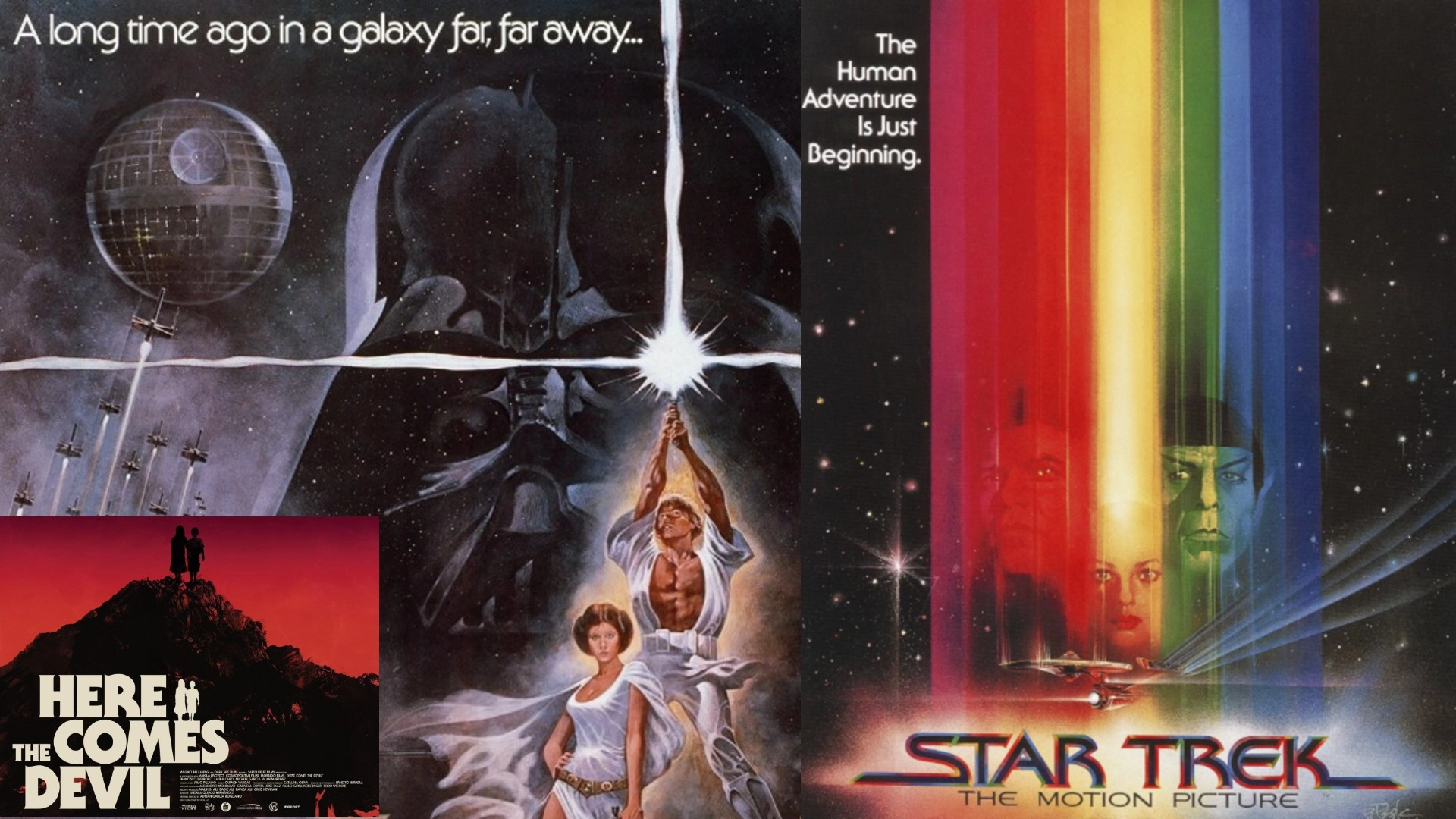
The best typography of the 1970s, as chosen by experts
The 1970s were a bold, transformative decade for design, and typography was no exception. As phototypesetting matured, designers found themselves freed from the physical constraints of metal type, enabling letters to touch, overlap, and interact in entirely new ways.
More generally, designers embraced the curves, flair, and experimental spirit of the time, giving rise to typography trends such as playful display fonts, chunky serif types, and futuristic styles.
We've spoken to leading typography experts to explore the decade's most influential and innovative typefaces. Read on to discover which one they picked, and why they remain a powerful source of inspiration for creatives today. For further inspiration, don't miss our guide to the best '70s logos or see this year's hottest type trends.
01. Baby Teeth
Famed New York creative Milton Glaser is one of those names that every graphic designer should recognise. But while he's best known for his 'I [Heart] New York logo, and work for Bob Dylan and DC Comics, he also crafted a fair few typefaces, and Baby Teeth was one of the most notable. Inspired by a hand-painted Mexican advertisement, it was released in 1968 and went on to become a defining typeface of the following decade's countercultural movements.
Jessica Walsh, creative director at Type of Feeling, is among its fans today. "Baby Teeth is a standout for me," she enthuses. "With its chunky, sans-serif design, which feels both playful and daring, it encapsulates the psychedelic aesthetic of the period. This typeface is a reminder that design can be both serious and fun."
02. Stop
Released by the Nebiolo type foundry in Turin in 1970, Stop was one of the last typefaces produced in metal, yet its impact would be thoroughly modern. Designed by Aldo Novarese, it was launched on the market as a “new alphabetical sign… in the quest for new graphic ideas”. Its extremely stylised shapes letterforms were specifically designed to make attractive logos, initials and monograms.
As Landor's design director Gianluca Ciancaglini observes: "Stop is a prime example of modernist design, with its simple, geometric forms and stark contrasts. Each letter is a study in precision and balance, a testament to creator Novarese's meticulous approach, and radical departure from the ornate scripts of the past."
In short, while drawing inspiration from modernist principles, Stop exhibits a visual complexity that sets it apart. "Novarese, with his masterful hand, has created a balance between essential geometric forms and carefully crafted details that lend the typeface a distinctive personality," notes Gianluca. "It's a perfect example of how typography can be both rigorous and expressive."
03. ITC Avant Garde Gothic
Designed by Herb Lubalin and Tom Carnase in 1970, ITC Avant Garde Gothic is a geometric sans serif font family. "It was based on a logo Lubalin designed for Avante Garde magazine, whose distinctive look came to define a specific era of graphic design in the 70s," explains Rosie Garschina, executive creative director of Trollbäck+Company,. "A suite of alternative ligatures creates several recognisable combinations that felt futuristic and forward-thinking at the time."
Gianluca is also a fan. "This sans-serif font masterfully combines a modern, minimalist aesthetic with a strong personality, profoundly influencing how we perceive typefaces," he enthuses. "It captures a spirit of a generation that was eager to break free from the constraints of the past and embrace the future."
Riccardo De Franceschi, creative director at Dalton Maag, adds that its release came at a pivotal time for type technology. "From the mid-20th century, first photocomposition and then dry transfer lettering freed fonts for the first time in history from their physical constraints," he explains. "Letters could finally touch and overlap, and ITC Avant Garde Gothic was designed to make the most of these technological innovations."
In practice, that meant that: "Round strokes were allowed to touch the next letter. Straight vertical stems were separated by a very fine space, as were the diagonals of the 45-degree slanted alternate shapes for 'A', 'M', 'V', and 'W'. This extremely tight rhythm is punctuated by the large circular counters of letters like 'O' and 'D'. A range of innovative ligatures are at the core of the set, including interlocking and nested uppercases – something that 'nobody had ever fooled around with', as Lubalin himself put it."
04. Trooper Roman
Created by Dave Trooper in 1974, Trooper Roman is a Didone display face that exemplified the new possibilities of phototype technology. Thierry Blancpain, co-founder of Grilli Type, reflects on why it made such an impact.
"Trooper Roman is a classic 70s design that brings so much flavour to the table," he says. "Design elements like the tall x-height and the short, stubby serifs create a high impact and most importantly fun impression.
"It was designed for VGC, creator of a phototype machine that allowed for headline typeface setting," Thierry adds. "These machines allowed for resizing, scaling, squeezing and expanding typefaces on the fly, in a way that was totally new to the design world, coming as it was from metal and wood type."
05. Cooper Black
Cooper Black is an ultra-bold serif typeface intended for display use, which was designed by Oswald Bruce Cooper and released by the Barnhart Brothers & Spindler type foundry in 1922. But it really came into its own within the counterculture of the 1960s and 1970s, with its distinctive rounded shapes and thick strokes perfectly captured the era's rebellious spirit.
This typeface wasn't just visually striking; it was versatile, used for everything from ads to album covers, such as The Doors' L.A. Woman and David Bowie's Ziggy Stardust. Towards the end of the decade, it also became popular with the emerging hip-hop movement.
Its popularity has persisted, and in 2017, The Guardian named it as the most fashionable font due to its use by fashion brands such as Topshop and Pull and Bear. Cooper Black's distinctive style continues to be used in various design applications, from posters to branding and packaging, and it's typically used to evoke a sense of nostalgia or to add a playful, eye-catching element to a design.
06. Calypso
Designed by by Roger Excoffon, produced with the help of José Mendoza y Almeida, and released by Fonderie Olive, Calypso is an experimental display typeface with curvaceous and alluring features that could be likened to pop art. Using a pair of compasses, every character was meticulously hand-drawn dot by dot. Though designed in 1958, it found its true spiritual home in the experimental 1970s.
As Simon Manchipp, founding partner at SomeOne, explains: "The '60s' trippy edge might have been fading, but there were still a few notable moments of typographic radicalism in the '70s. And this three-dimensional, dot screen, halftone stonker is my pick of the bunch. What a wild ride this collections of letterforms gives.
"Much like the BrandWorld thinking we invented at SomeOne, Roger Excoffon created a unique typographic world," he continues. "Not content with providing a set of 3D sculptural forms, there’s also a flat version which is pretty mad, and a line version that’s madder.
"It’s radical design stuff, but when paired with an album titled Moog (1969) from an artist who’s name could well be illegal, with an opening track called ‘Topless dancers of Corfu’, the die had been cast for these bonkers beziers."
07. Frutiger
In 1970, renowned Swiss type designer Adrian Frutiger was commissioned to create a signage system for the newly built Charles de Gaulle Airport in Paris. The airport's vast expanse and complex layout demanded a typeface that was both legible and visually appealing, even at a distance.
The result was the sans-serif typeface Frutiger. Its design philosophy is rooted in clarity and functionality. a typeface that can be easily read, even under challenging conditions, while also possessing a distinct aesthetic appeal.
Its success at Charles de Gaulle Airport quickly propelled it to international recognition, and its versatility, clarity and elegance made it a popular choice for a wide range of applications, from print to digital design. Today, its impact can be seen in countless design projects around the world, from corporate branding to wayfinding systems.
08. ITC Serif Gothic
Created by Herb Lubalin and Tony Di Spigna in 1972, ITC Serif Gothic began as a rejected logo sketch before becoming a sci-fi icon, best known for its use on the original Star Wars posters.
For Gary Whitworth, designer at The Chase, it has an immediate emotional impact. "ITC Serif Gothic is the ultimate icon of 70s typography in my eyes," he raves. "The mere sight of it transports me into another world, or should I say universe, of aliens and creatures from beyond.
Popular within the sci-fi world that exploded in the 70s, its chunky features and sharp serifs became a visual shorthand to me, which said much like the typeface itself: you were about to experience something unexpected, but memorable.
"In the end," he adds, "it's become the cornerstone of a 70s aesthetic that still remains hugely popular today. Star Wars, Star Trek, Stephen King, Isaac Asimov, Halloween and numerous other covers and posters were all elevated by its cinematic presence. Not bad for a reject."